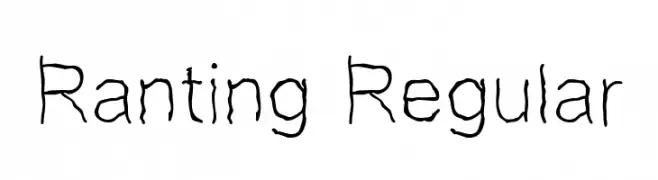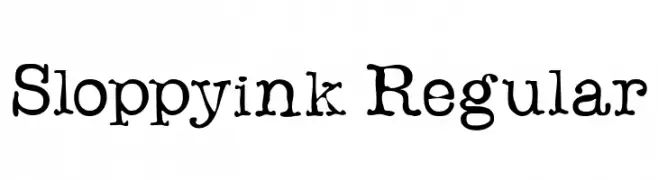
A playful, cloud-themed font with bold, rounded characters.
A playful, hand-drawn style with irregular, ink-like strokes.
A modern, bold, semi-condensed sans-serif font with tight spacing.
A bold, italicized grunge font with a rugged, distressed texture.
A bold, dripping paint style font with a dramatic and artistic flair.
A hand-drawn, expressive font with irregular, organic lines.
Bold, geometric font with a shadow effect for a 3D appearance.
A bold, angular font with a dynamic, blade-like design and slanted orientation.
A bold, distressed font with a rugged, vintage appearance.